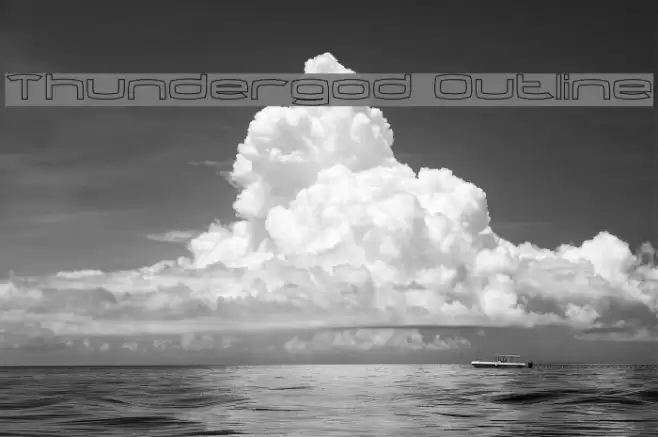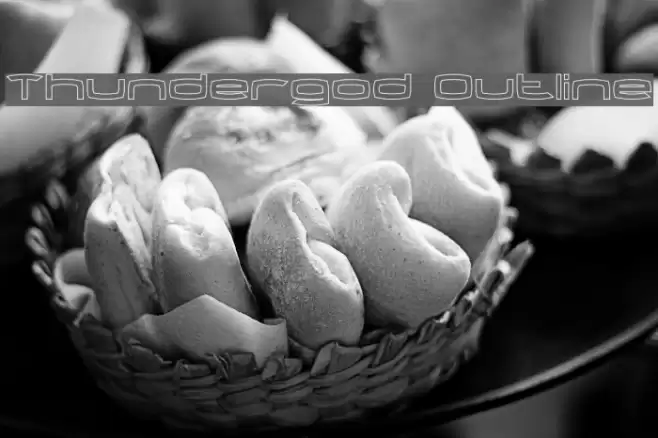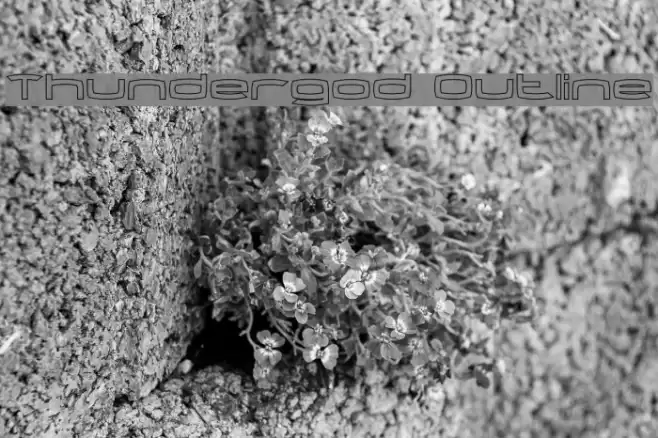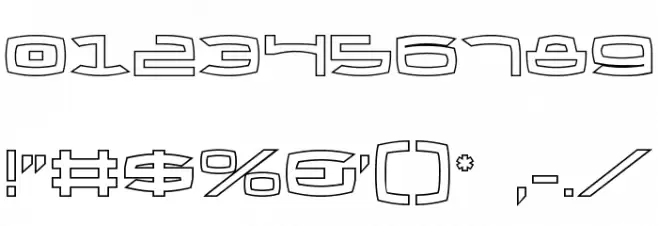
Thundergod Outline Font
Thundergod Outline Description
This font features a bold, futuristic outline style with geometric shapes and sharp angles. The characters are designed with a consistent stroke width, creating a uniform and cohesive appearance. The uppercase and lowercase letters maintain a similar structure, enhancing readability while adding a modern touch. The numerals and special characters are crafted to match the overall aesthetic, making them suitable for various design applications. The font's outline nature gives it a unique and striking look, ideal for projects that require a standout typographic element.
A bold, futuristic outline font with geometric shapes and sharp angles from Uncategorized fonts.
- Proposed Projects: Ideal for sci-fi themed designs, video game graphics, posters, and branding that requires a modern and edgy look.